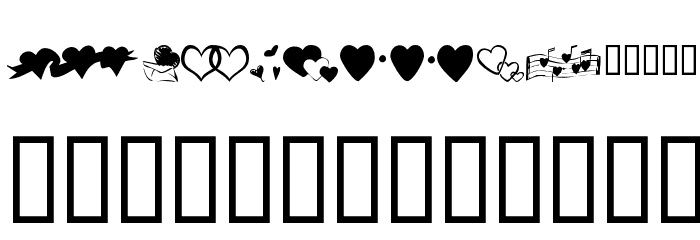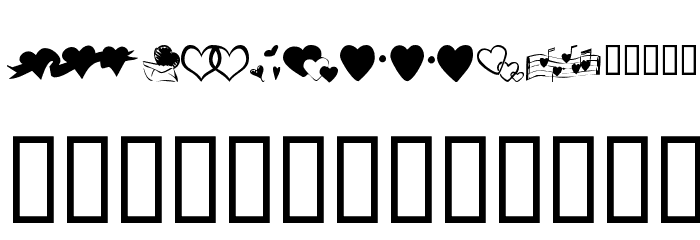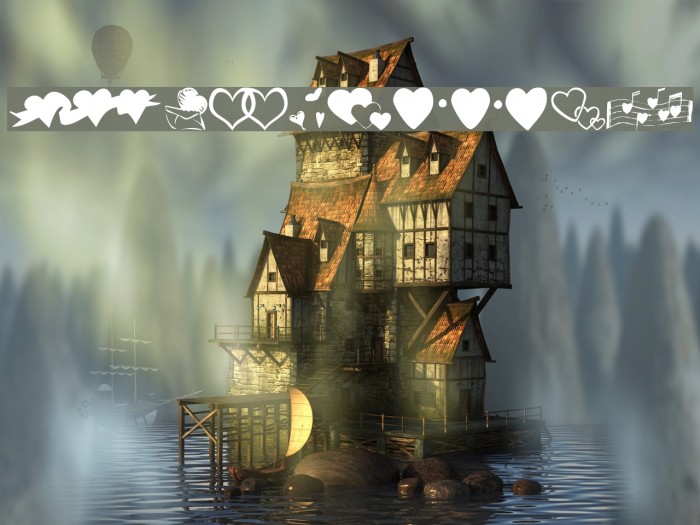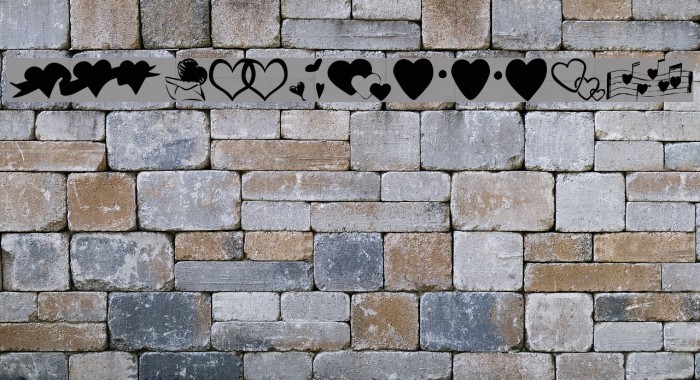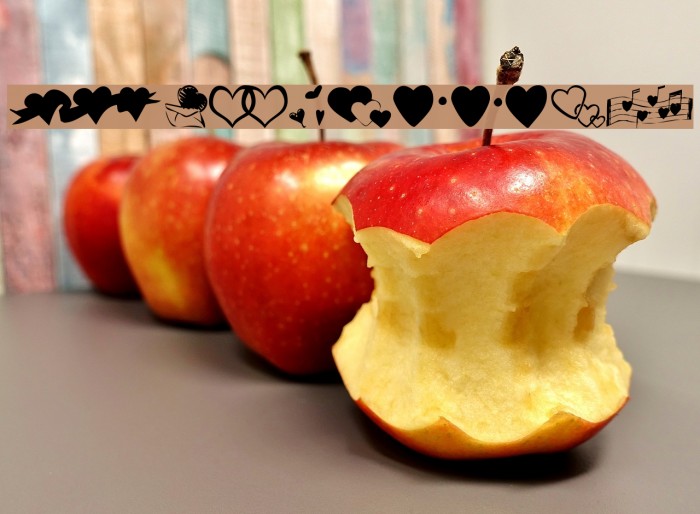
KR Hearts Along Font
This decorative font features a series of heart-themed designs, incorporating elements such as arrows, envelopes, and musical notes. The characters are not traditional alphanumeric symbols but rather a collection of romantic and whimsical icons. Each character is intricately designed, making it ideal for projects that require a playful and affectionate touch. The font's unique style is perfect for Valentine's Day themes, wedding invitations, or any design that aims to convey love and romance. The consistent use of heart motifs throughout the font gives it a cohesive and charming appearance.
A decorative font with heart-themed icons, perfect for romantic designs.
- Proposed Projects: Ideal for wedding invitations, Valentine's Day cards, love-themed posters, and decorative crafts.
- Use Case: Logos, Decorative elements